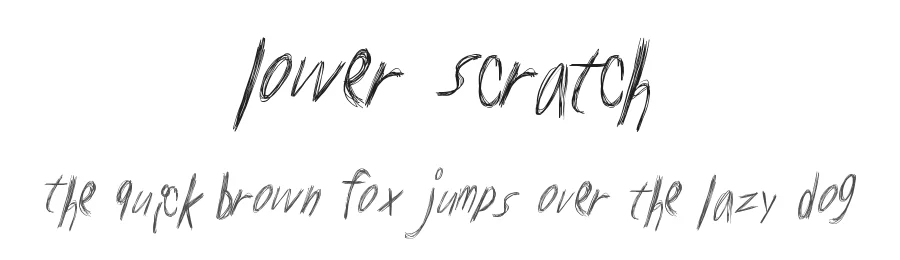
About Kill The Noise Font
Inspired by musician "Kill the Noise".
*UPDATE 2014/06/06: This font now contains cloned lowercase, and additional numbers and punctuation for extra usability!